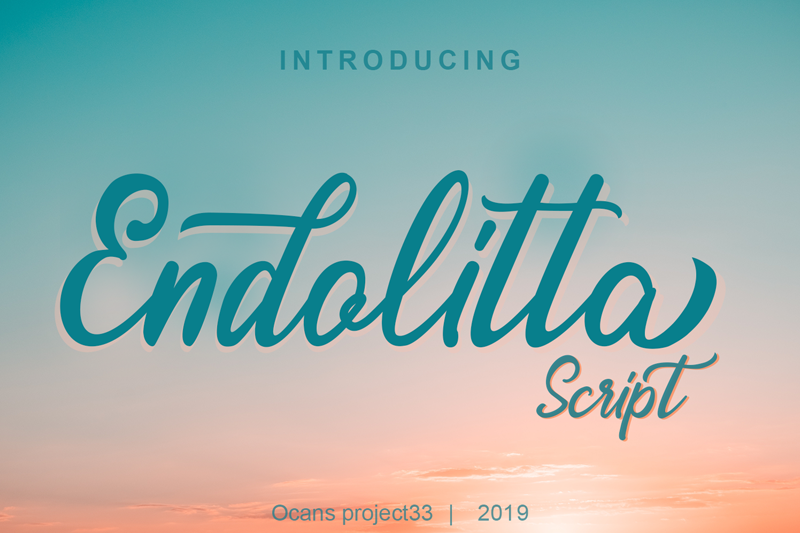
Font name: | Endolitta |
Author: | Oki Candra Setiawan |
NOTE: This demo font is for PERSONAL USE ONLY! But any donation are very appreciated. Endolita is a script typeface with bold and strong natural movement, this font is great for your various amazing project. This has many opentype features like ligature, stylistic alternate, contextual alternate, swash, etc and support multi language. Endolita font is perfect for many different project such as logos & branding, invitation, stationery, wedding designs, social media posts, advertisements, product packaging, product designs, label, photography, watermark, special events or anything. Paypal account for donation : https://paypal.me/ocans Link to purchase full version and commercial license : https://www.creativefabrica.com/product/endolitta/ OR https://gum.co/KmqJZ Please visit our store for more great fonts : https://www.creativefabrica.com/designer/ocans-project33/ ** Thank you for downloading my font, hopefully it's useful ** |